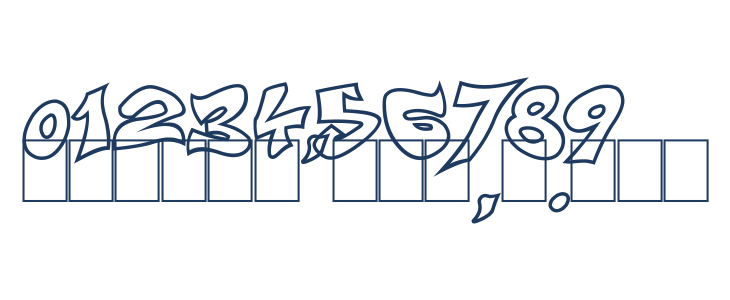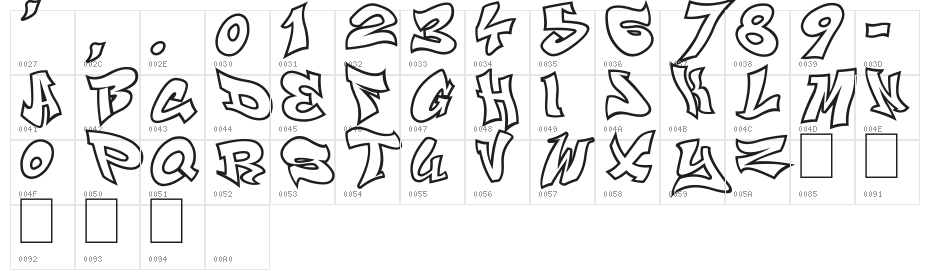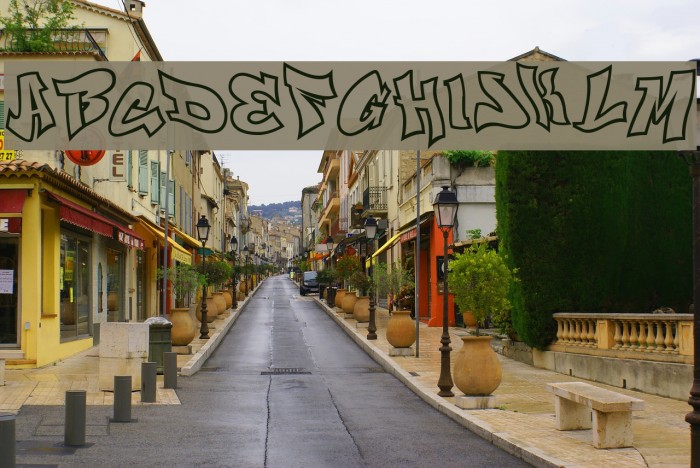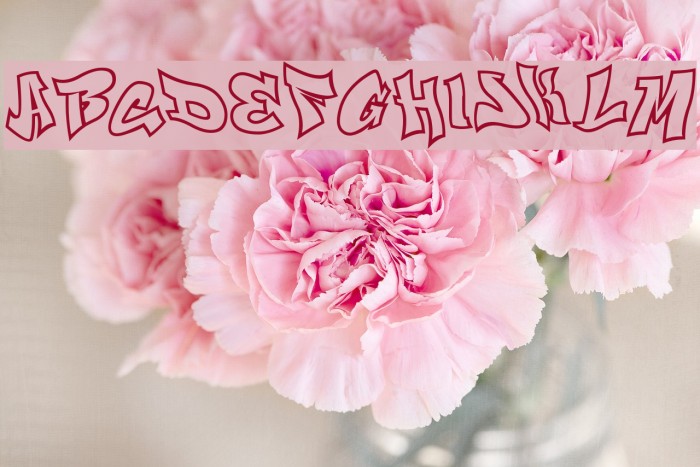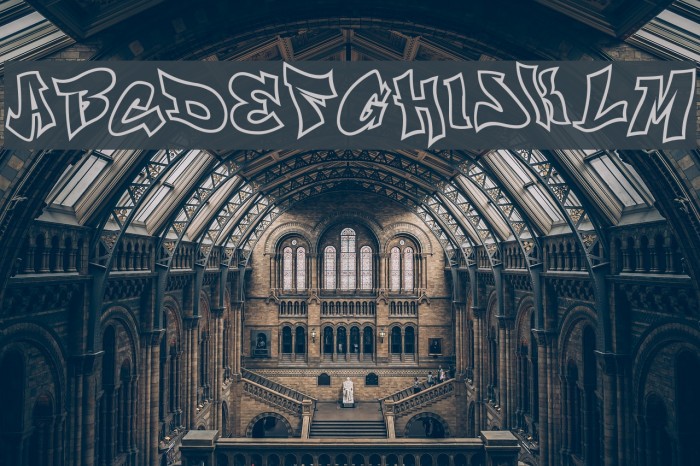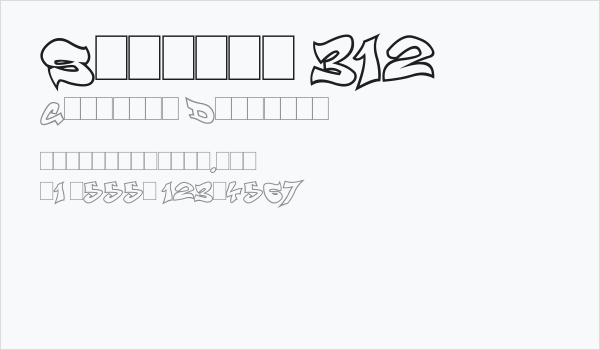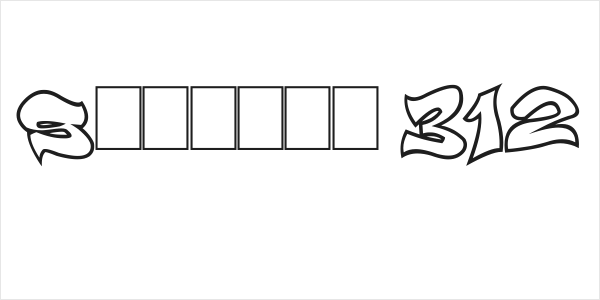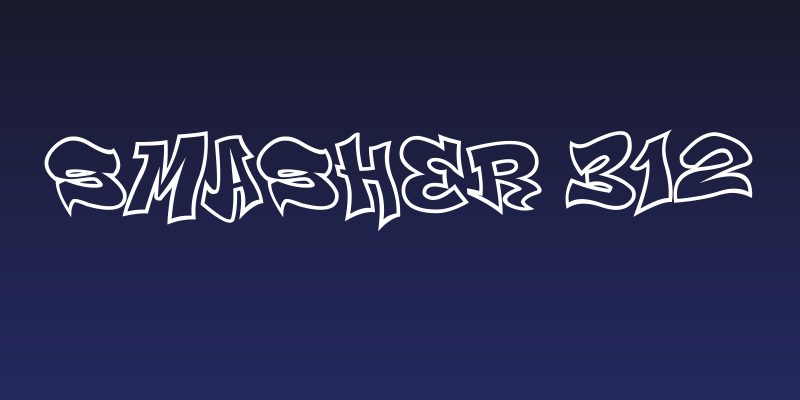
Smasher 312 Font
Smasher 312 Description
This font features a bold and dynamic style with sharp, angular edges and a graffiti-like appearance. The characters are highly stylized, with exaggerated curves and points that give them a sense of movement and energy. The uppercase and lowercase letters maintain a consistent design, with a playful yet edgy aesthetic. The numbers follow the same theme, ensuring uniformity across all characters. This font is ideal for projects that require a strong visual impact and a modern, urban feel.
| Overall Style | Modern, Urban, Edgy |
| Proposed Projects | Perfect for street art designs, urban-themed posters, music album covers, and edgy branding projects. |